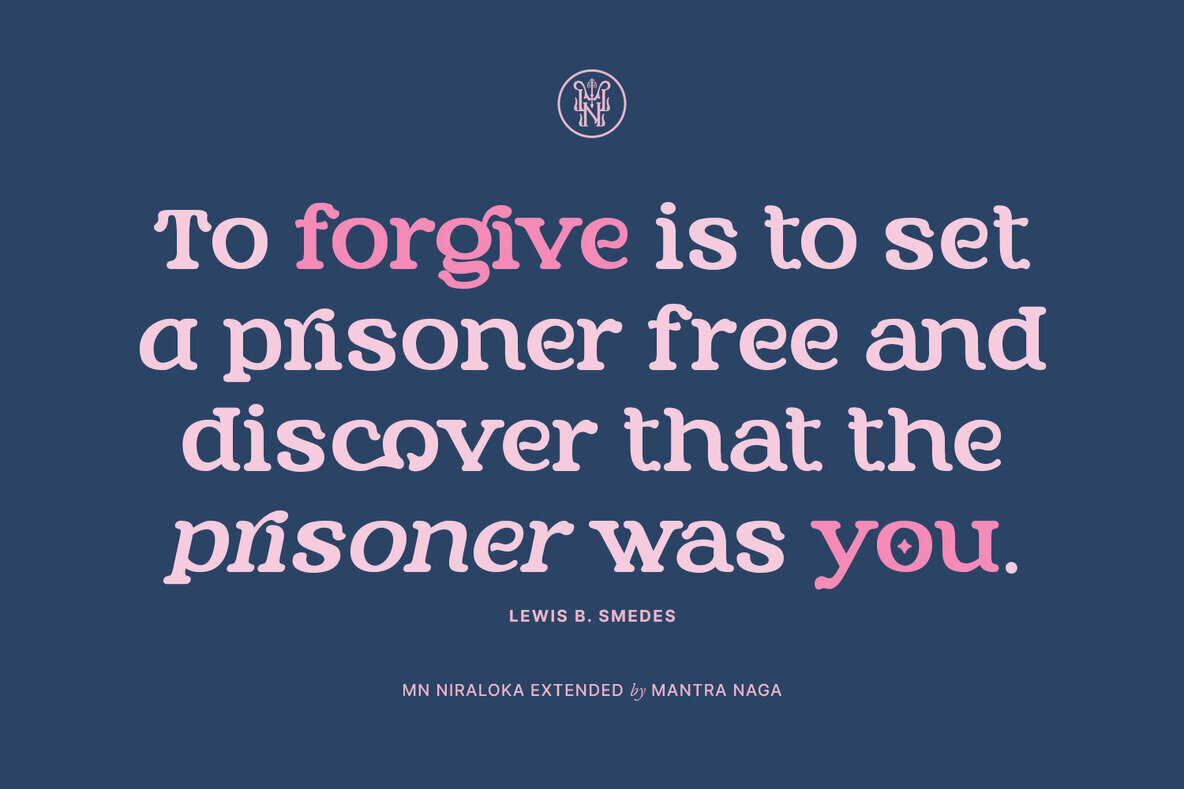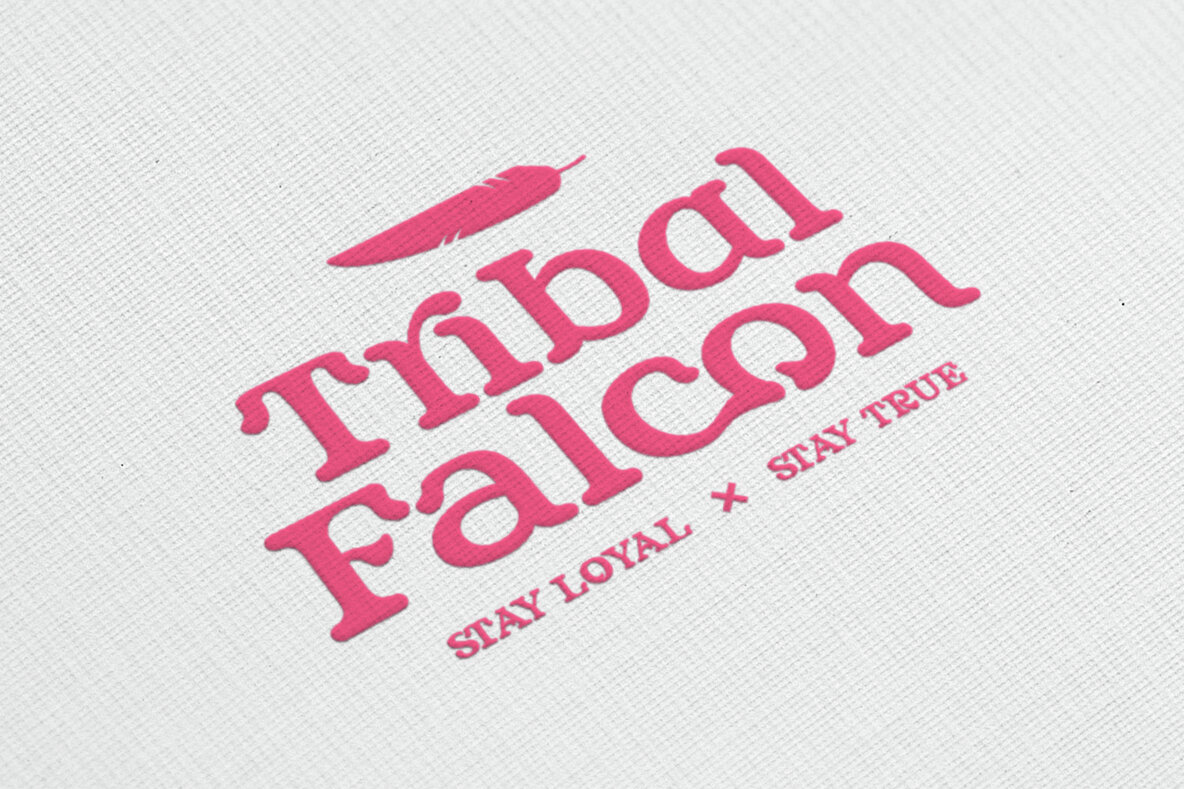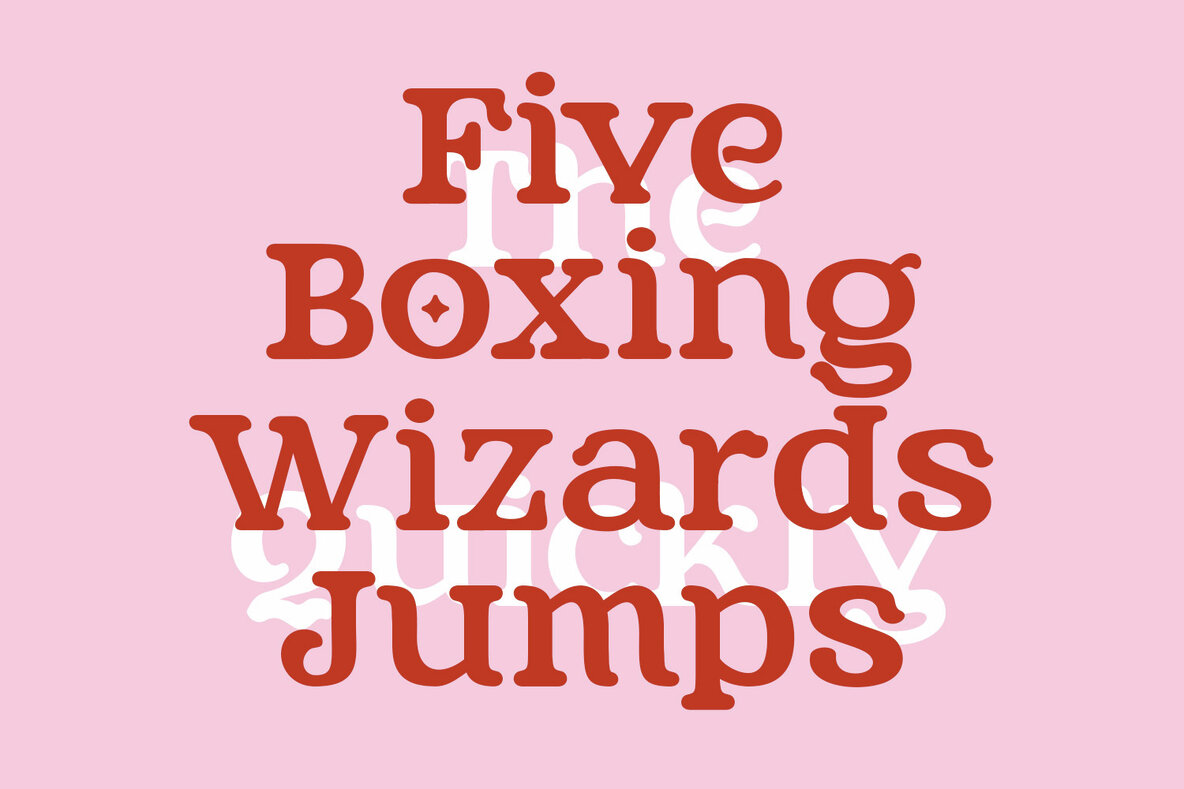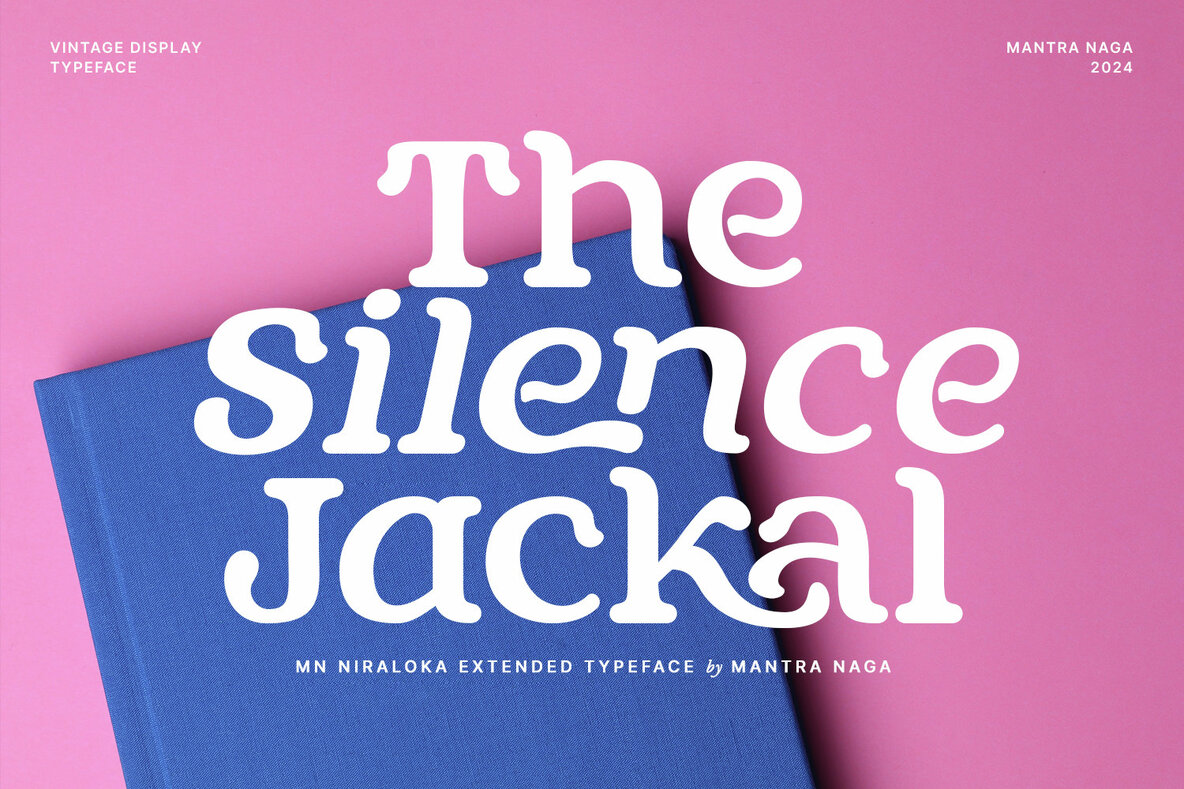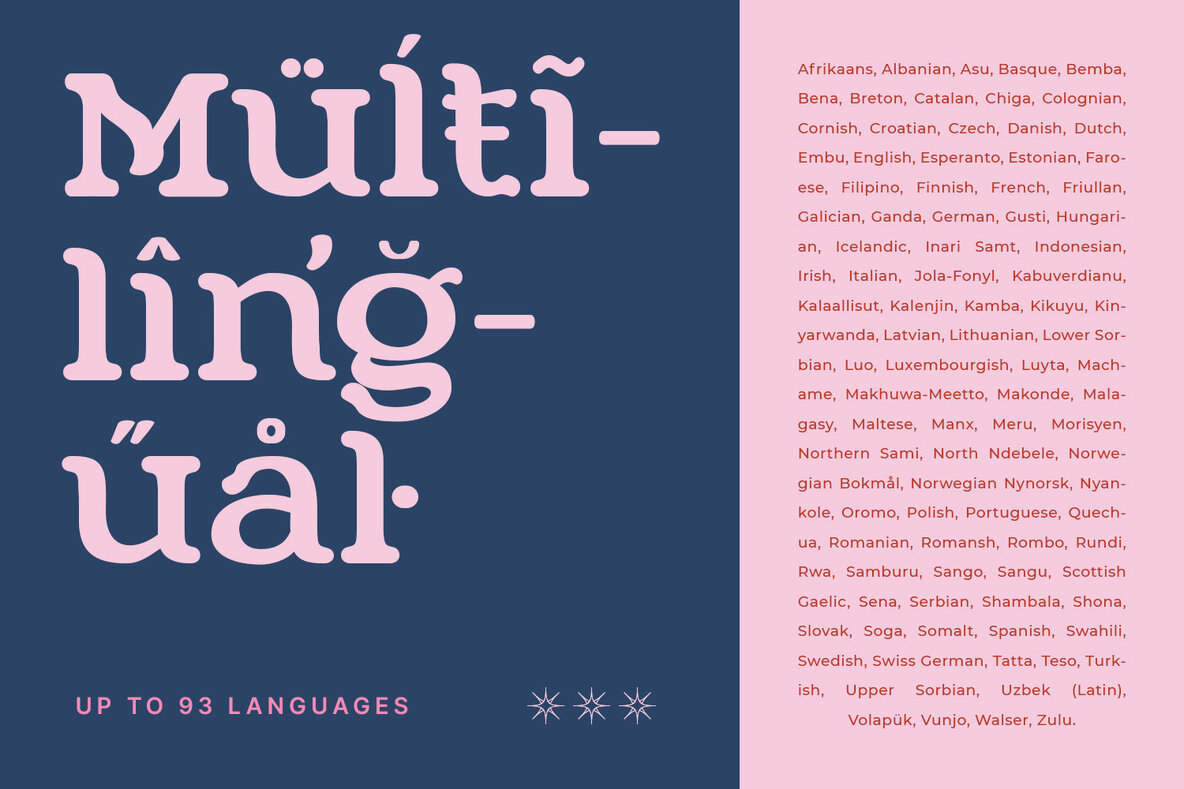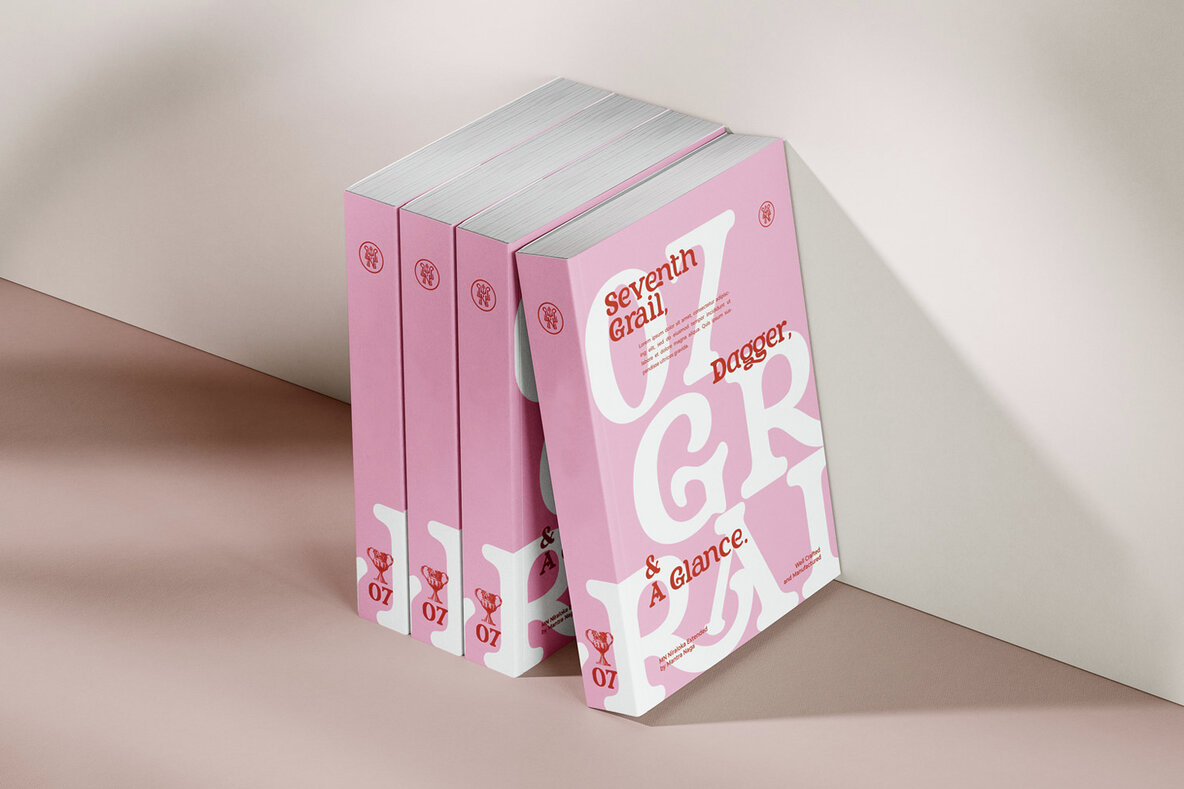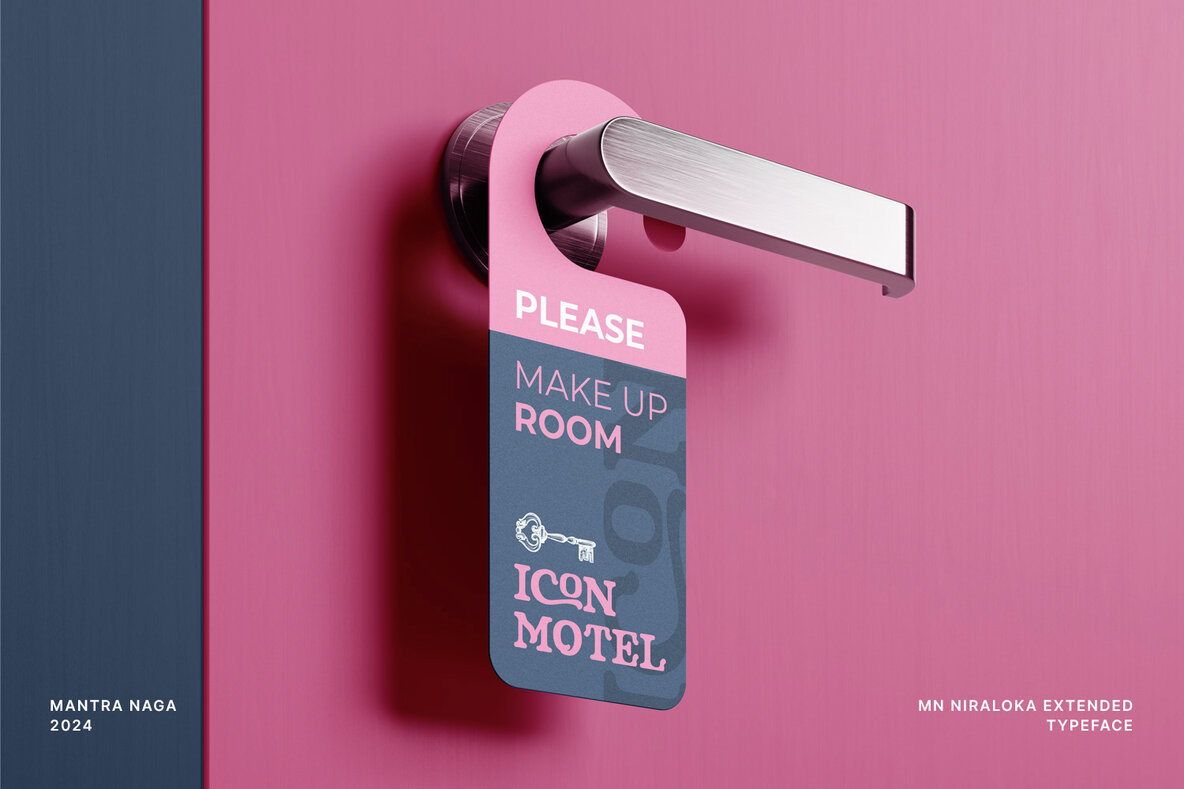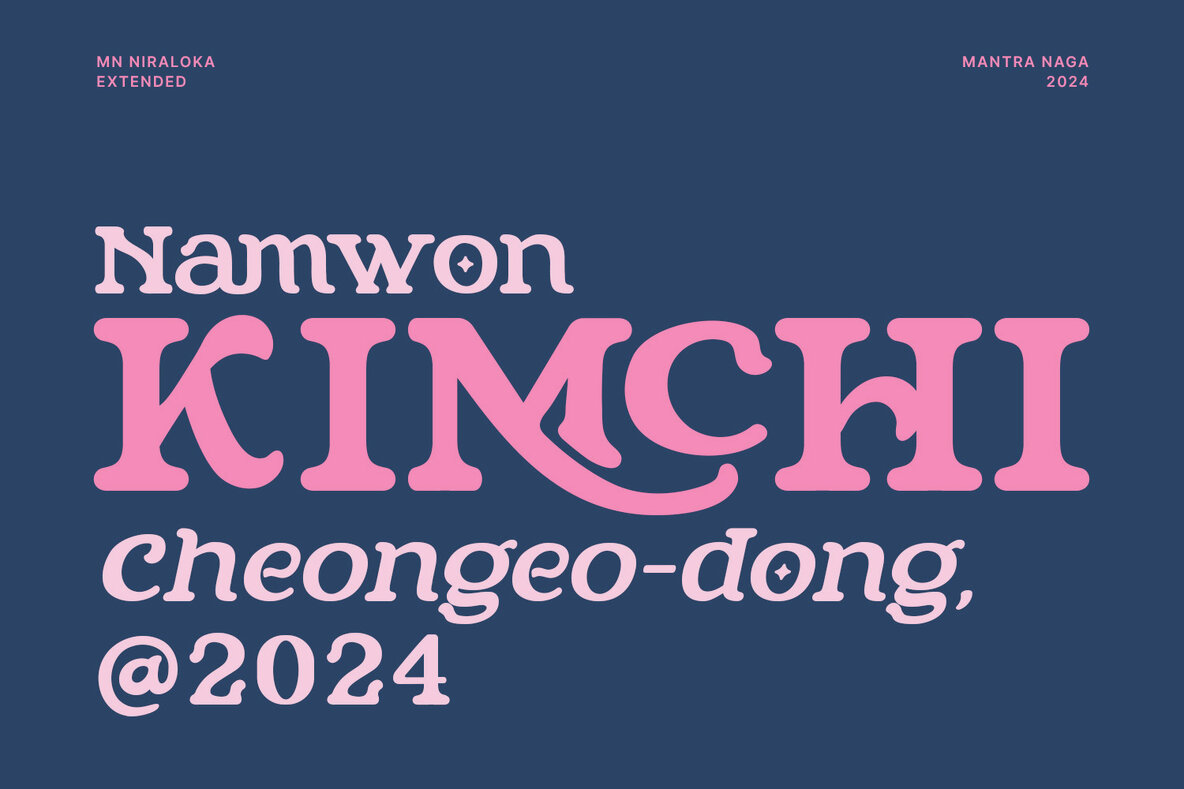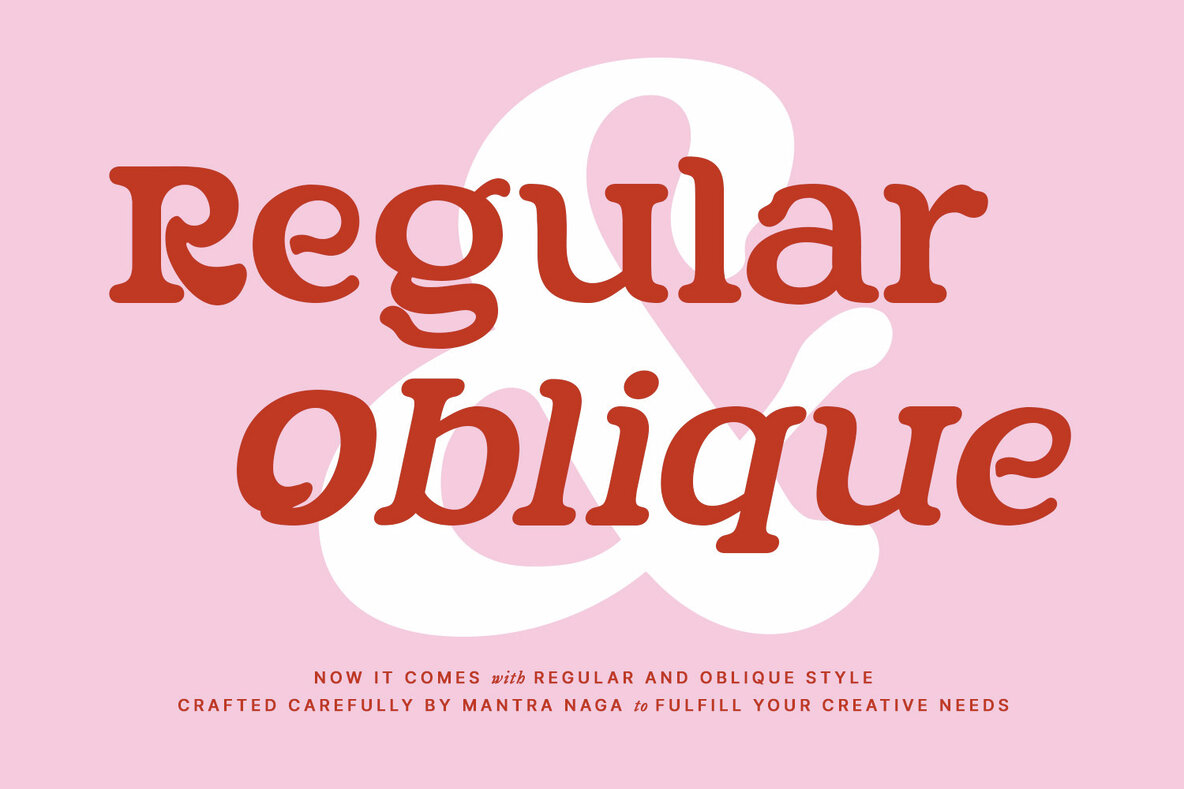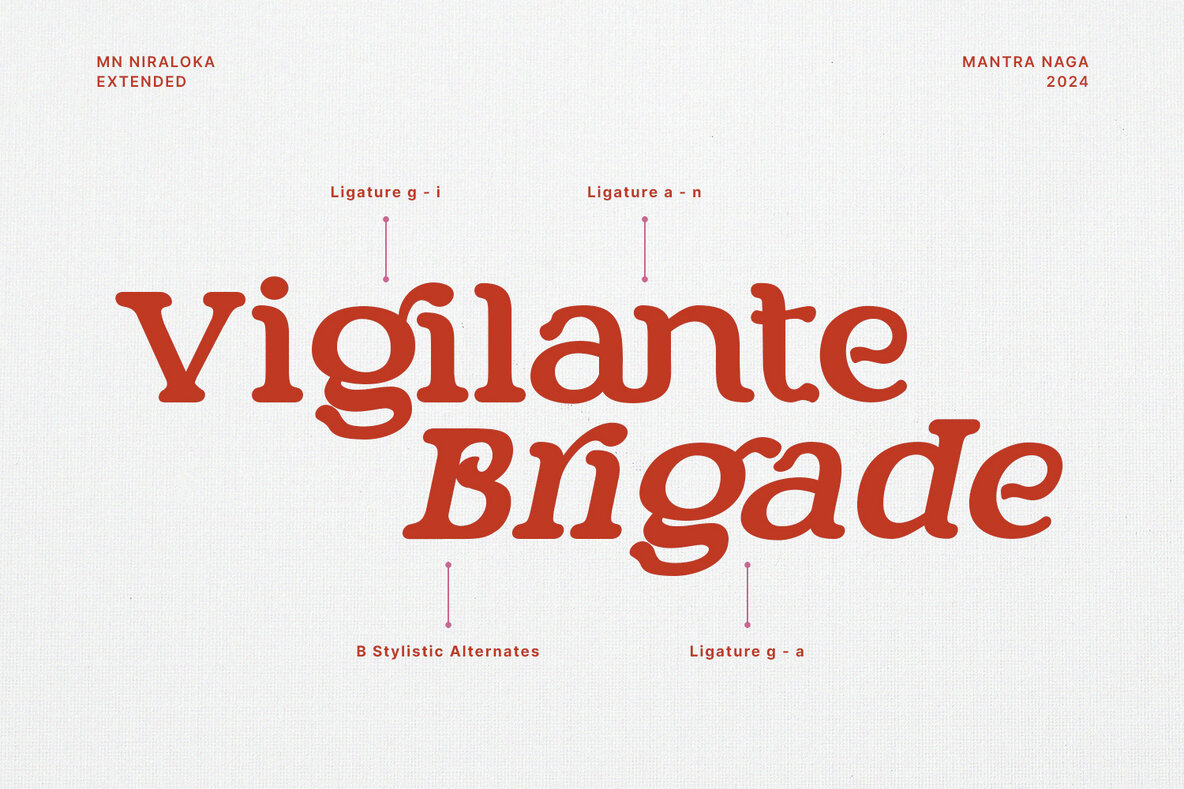
MN Niraloka Extended Font
MN Niraloka Extended font is an update from its previous version, offering more characters and OpenType features to enhance the beauty of letter design. Inspired by the Cooper font style, it features rounded serifs that exude a friendly, relaxed, flexible, and easily applicable vibe across various media. With its unique characteristics, MN Niraloka Extended is an ideal choice to add a captivating aesthetic touch to your design projects.